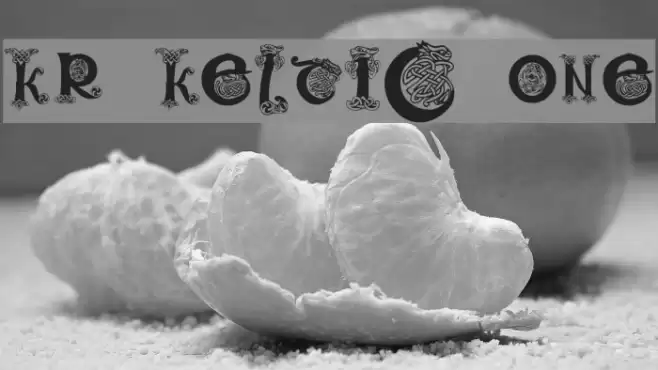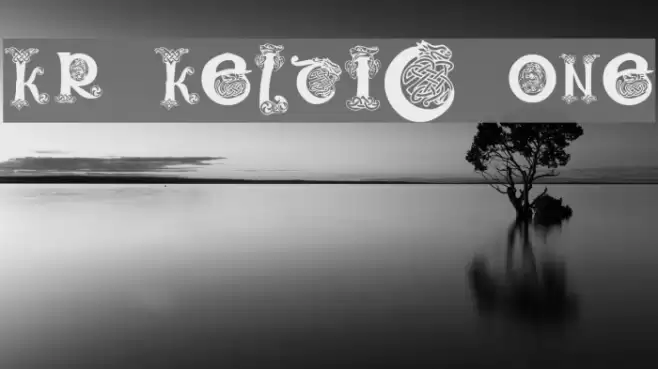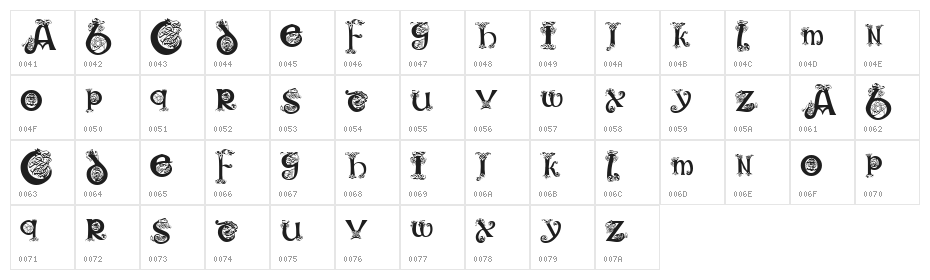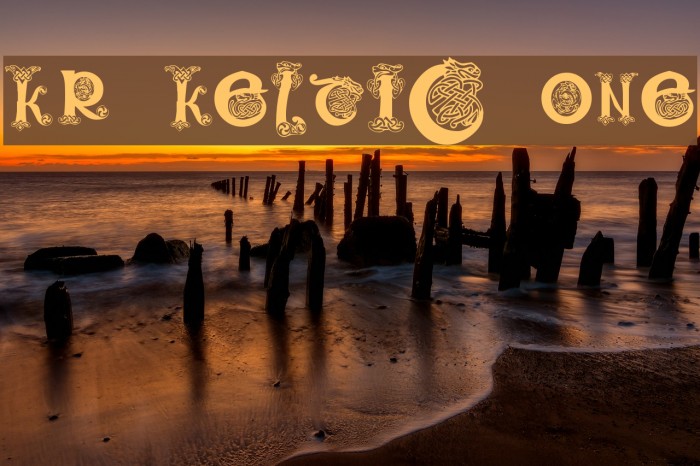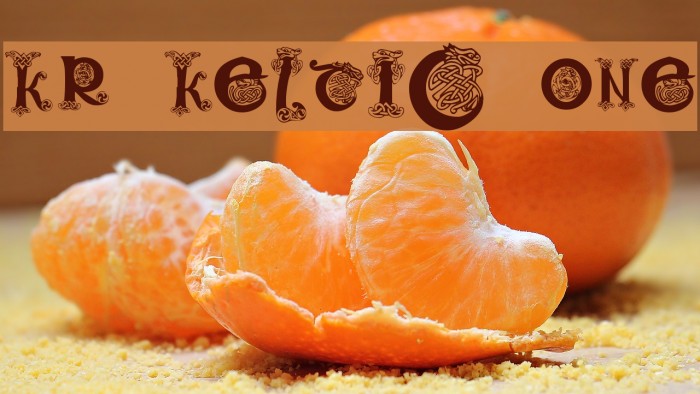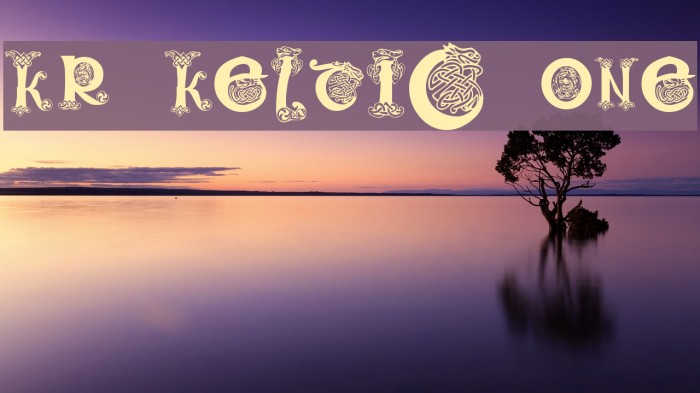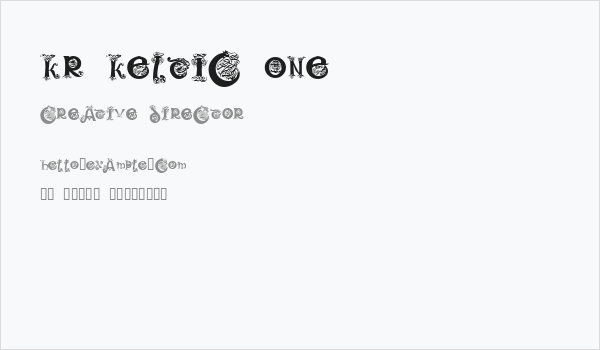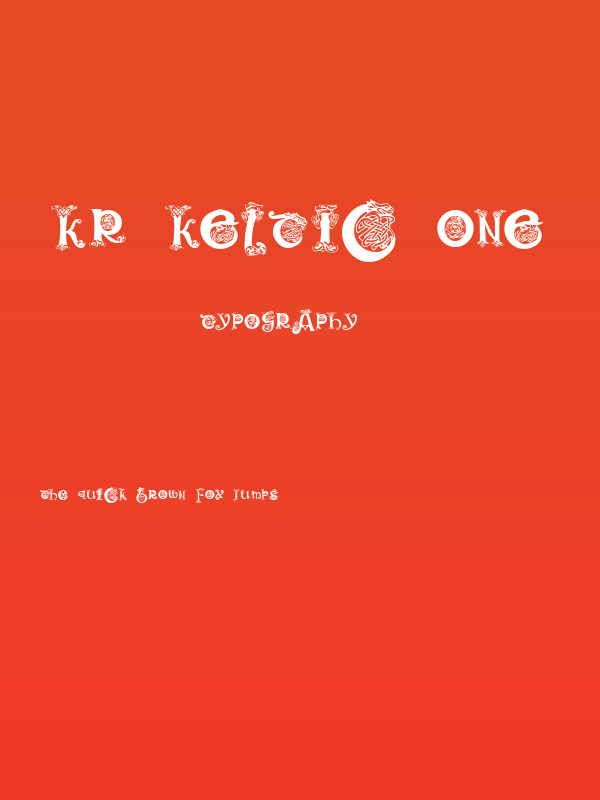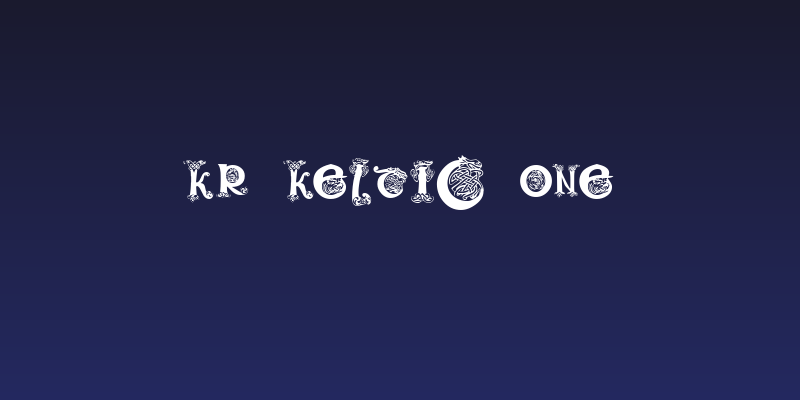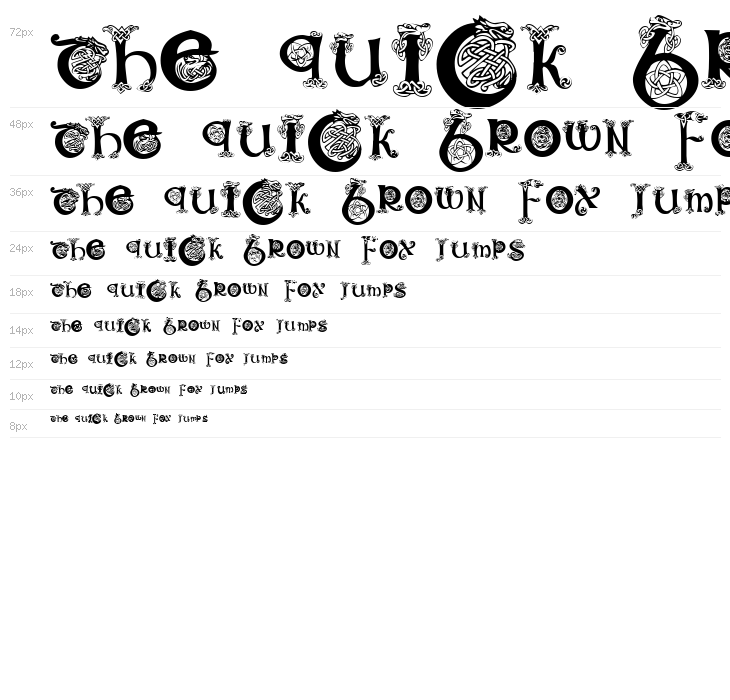
KR Keltic One Font
KR Keltic One Description
This font features intricate Celtic-inspired designs, with each character adorned with elaborate knotwork and ornamental details. The uppercase letters are particularly striking, showcasing bold and decorative patterns that evoke a sense of ancient artistry. The lowercase letters maintain a similar style, though slightly more subdued, allowing for a harmonious blend when used together. The font's unique style is reminiscent of traditional Celtic manuscripts, making it ideal for projects that require a touch of historical or cultural flair. The characters are well-defined, with a consistent style that ensures readability despite the decorative elements. This font is perfect for creating eye-catching headlines, logos, or themed designs that require a distinctive and artistic touch.
A decorative font with intricate Celtic knotwork designs, perfect for themed projects from Uncategorized fonts.
- Proposed Projects: Ideal for historical or cultural projects, themed event invitations, logos, and decorative headlines.
- Use Case: Headlines, Logos, Themed Designs